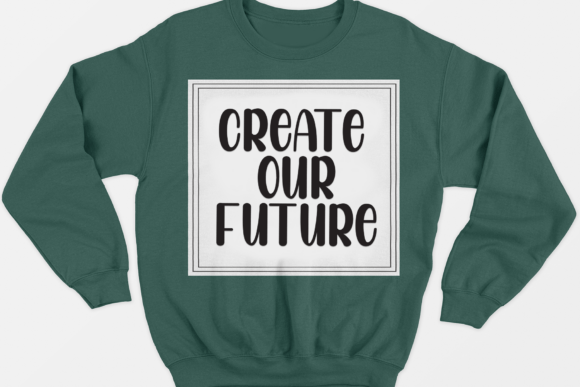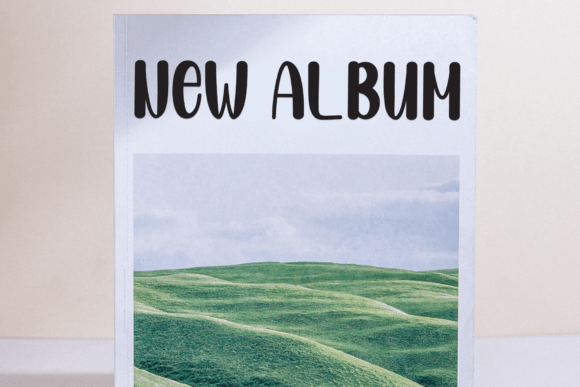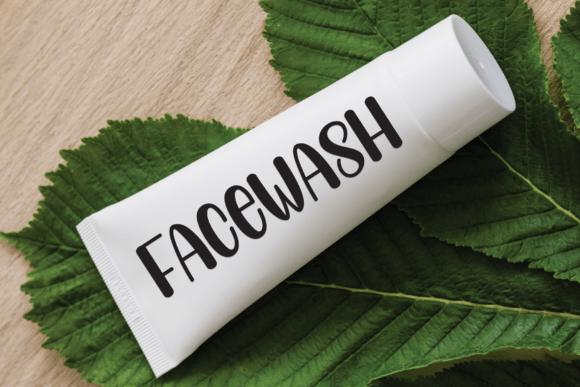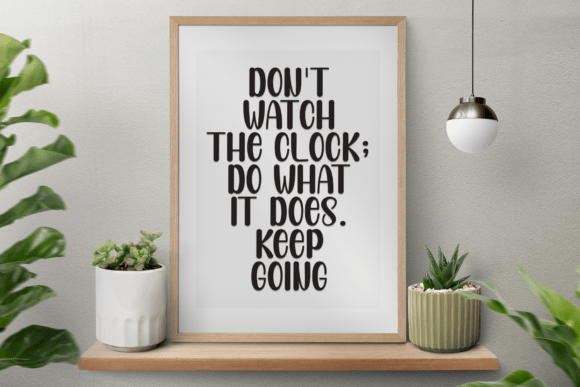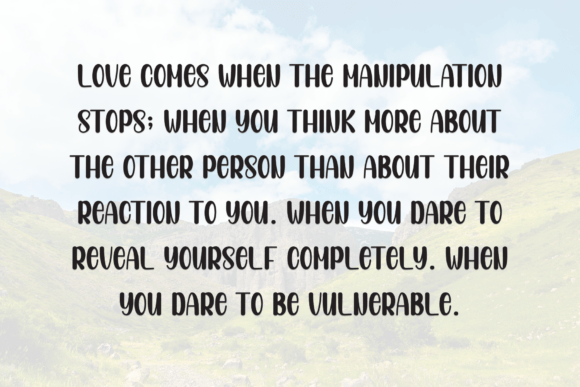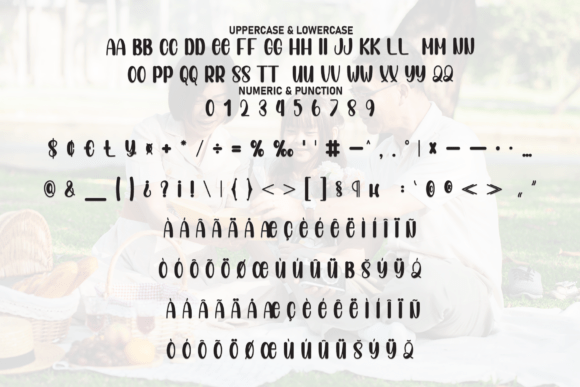
Introduction to Picnic Vacation Font
Introducing a bewitchingly engaging handcrafted display font that flawlessly exudes comfort and amiability – a perfect tool for injecting captivating charisma into any creative endeavor.
This font’s loveable and playful characteristics make it a prime choice in designing nuptial invitations or personalizing affecting cards Infuse your designs with a lively shimmer and a touch of creative flair with this remarkable font.
Key Features of Picnic Vacation Font